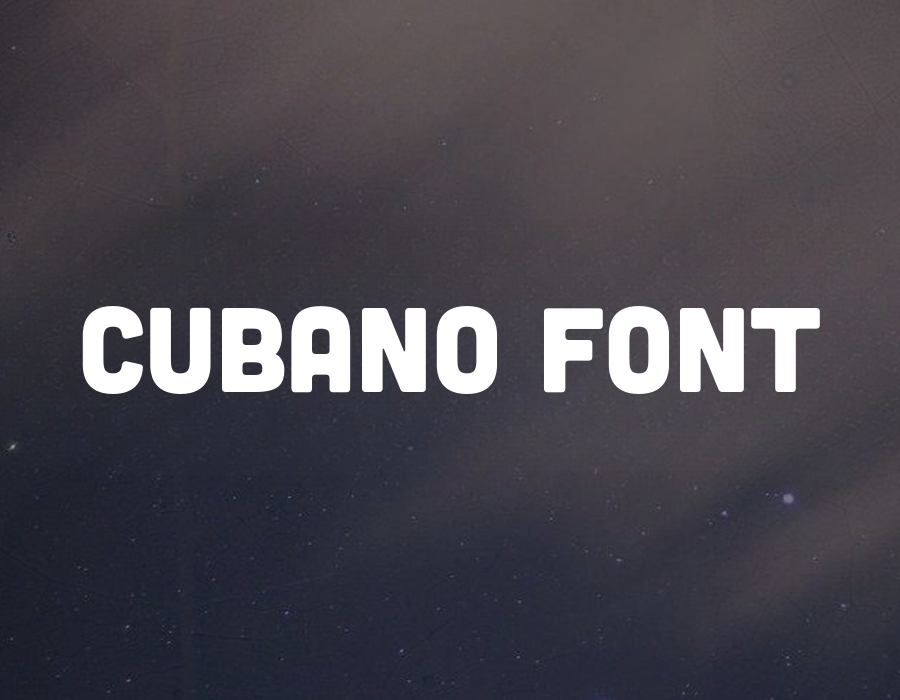
About Cubano Font
Cubano is a distinctive, rounded sans-serif display typeface known for its bold weight and friendly, retro character. Its letterforms are constructed from geometric shapes with fully rounded terminals, giving it a soft, approachable, and energetic feel reminiscent of 1970s design. The font is typically offered in a single, heavy weight that commands attention, making it ideal for short headlines, logos, poster titles, and packaging where a playful, confident, and slightly nostalgic impact is desired. Its rounded forms ensure it stands out with a non-aggressive boldness.